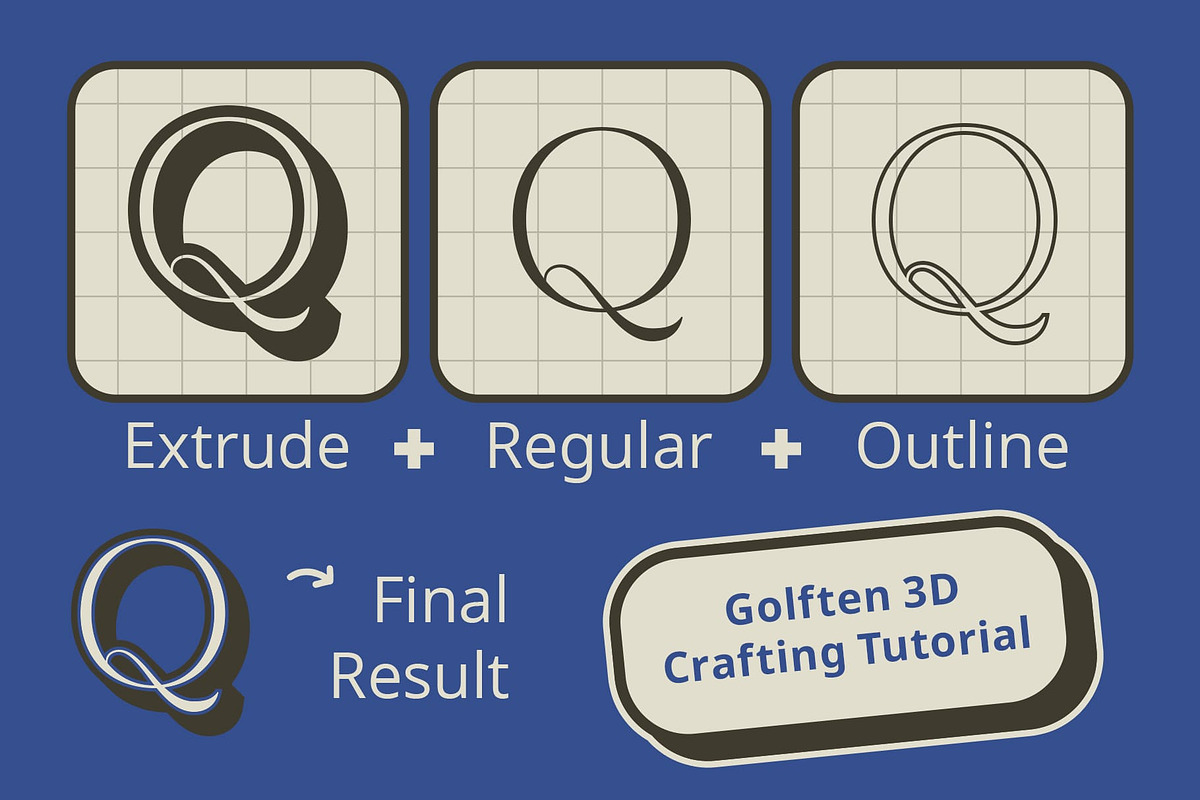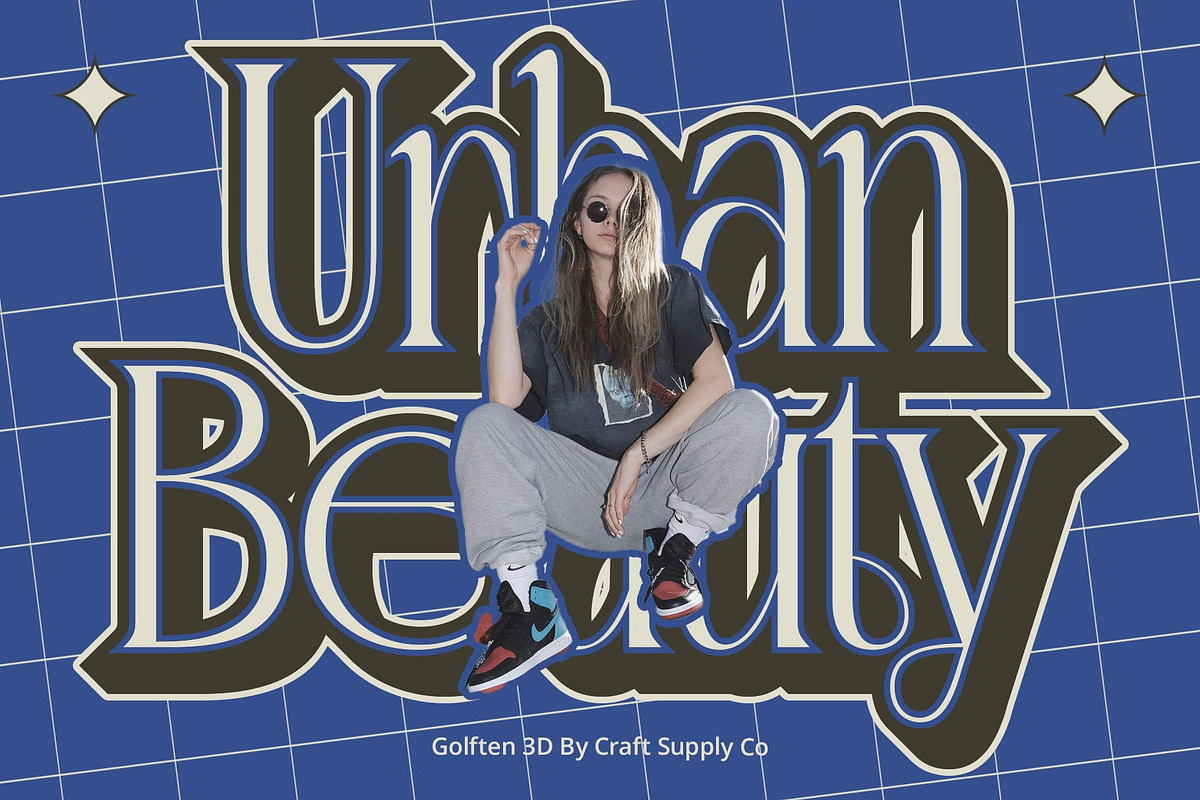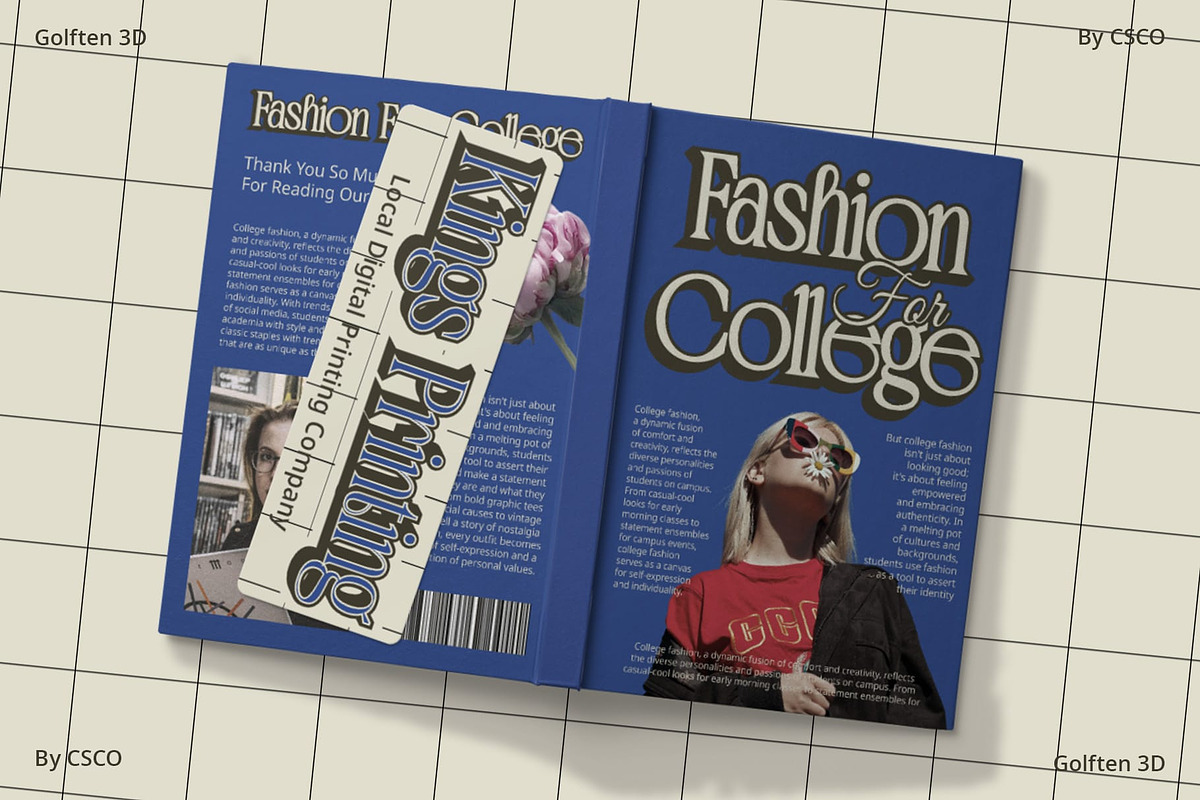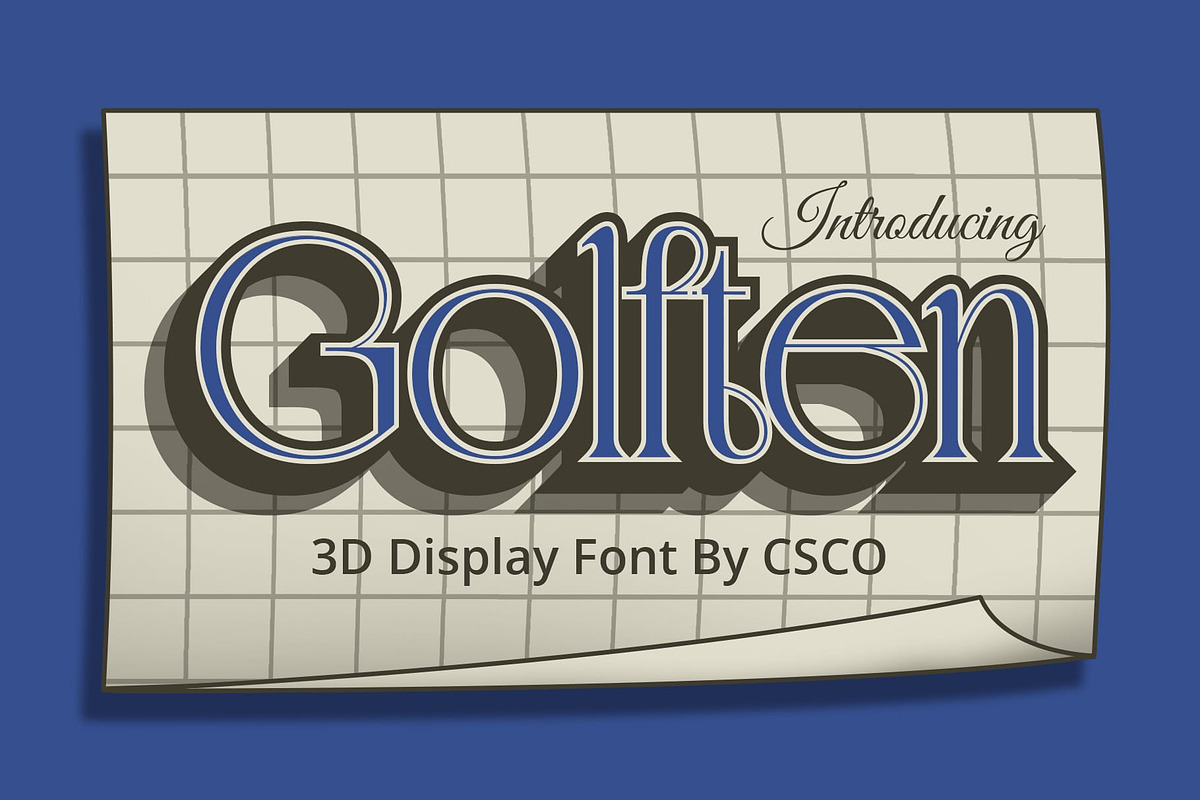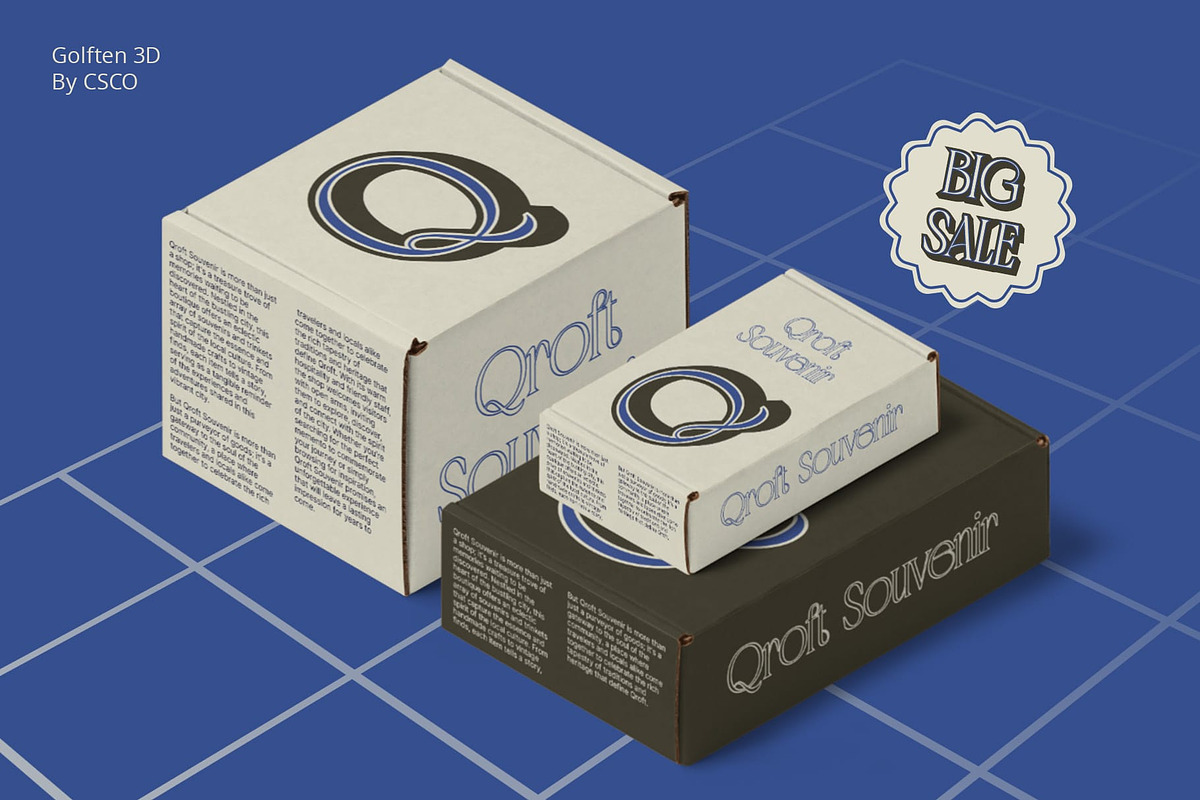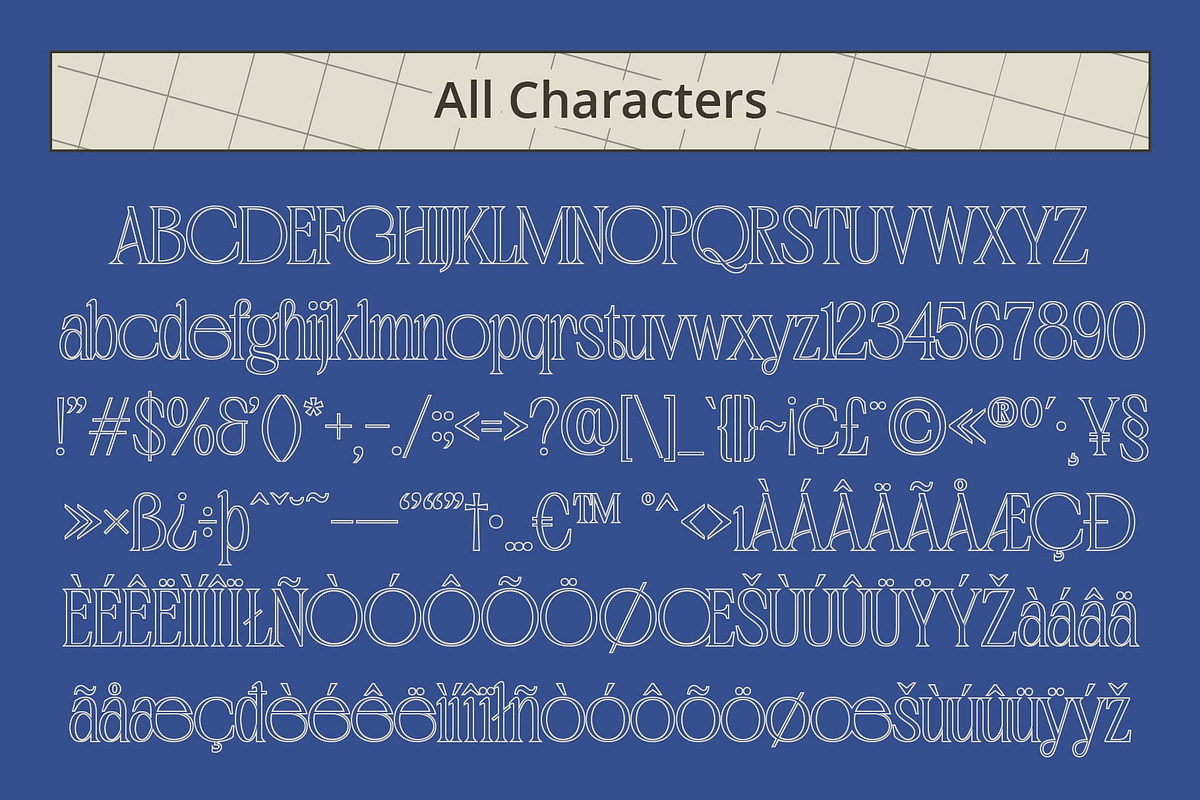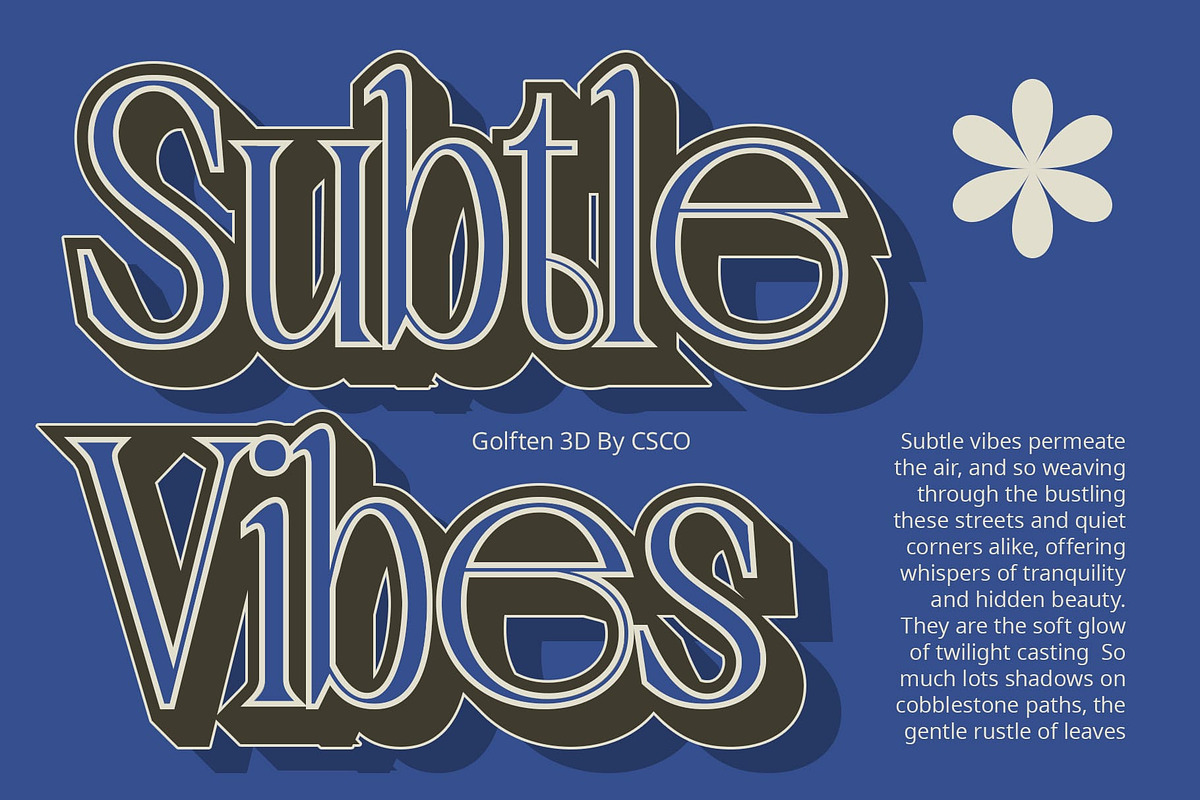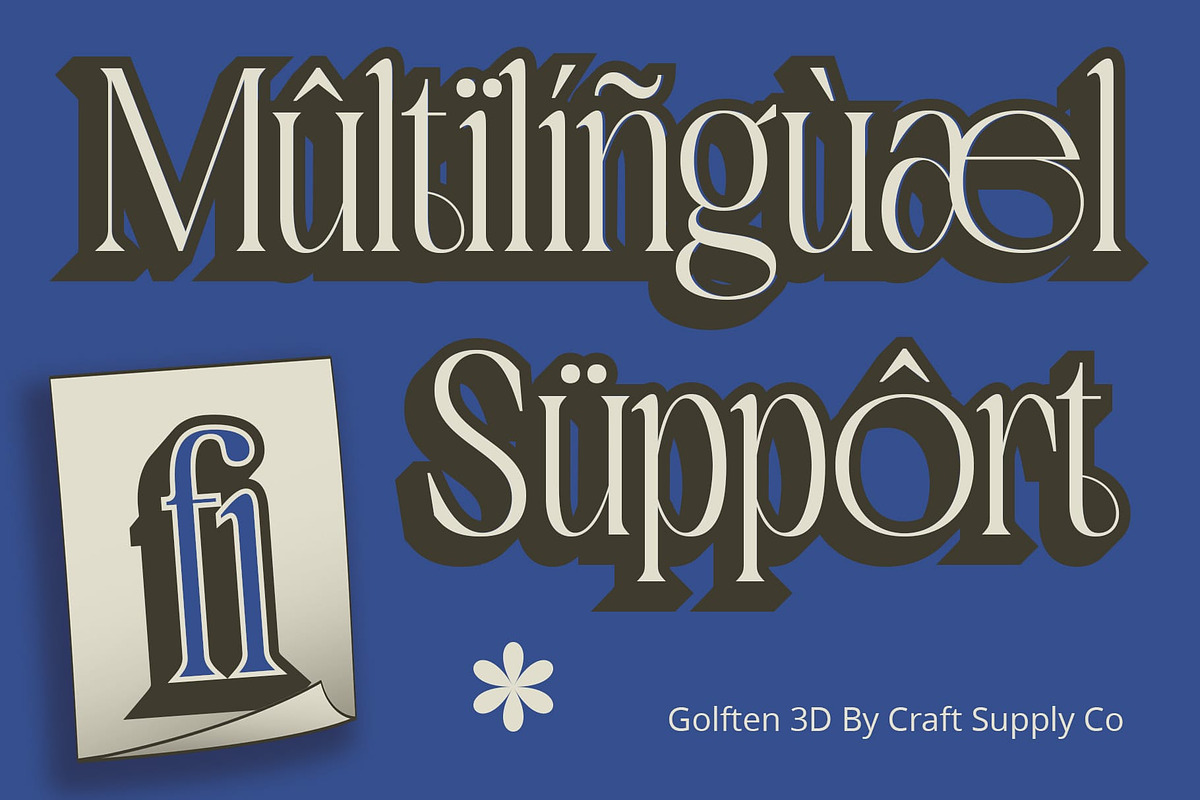
Golften 3D
Golften 3D: A Fusion of Art Nouveau and 3D Brilliance
Art Nouveau Inspiration Golften 3D draws inspiration from the intricate forms and organic shapes of the Art Nouveau movement. Its design echoes the elegance and fluidity characteristic of this iconic art style.
Dynamic 3D Effects Elevating its Art Nouveau-inspired form, This font features captivating 3D effects. Each letter emerges with depth and dimension, adding a contemporary twist to its vintage-inspired aesthetic.
Perfect for Eye-Catching Displays Tailored for attention-grabbing displays, This font excels in various contexts, from posters to packaging. Its striking appearance ensures that your message commands attention with style and sophistication.
Versatile Application Beyond its visual allure, This font offers versatility in application. Whether used in branding, advertising, or digital design, its fusion of Art Nouveau charm and 3D brilliance lends a unique flair to any project.
Artistry Meets Innovation This font stands as a testament to the harmonious blend of tradition and modernity. With its Art Nouveau-inspired form and dynamic 3D effects, it invites designers to explore new realms of creativity while captivating audiences with its timeless allure. Step into the world of Golften 3D and elevate your designs with its captivating charm.